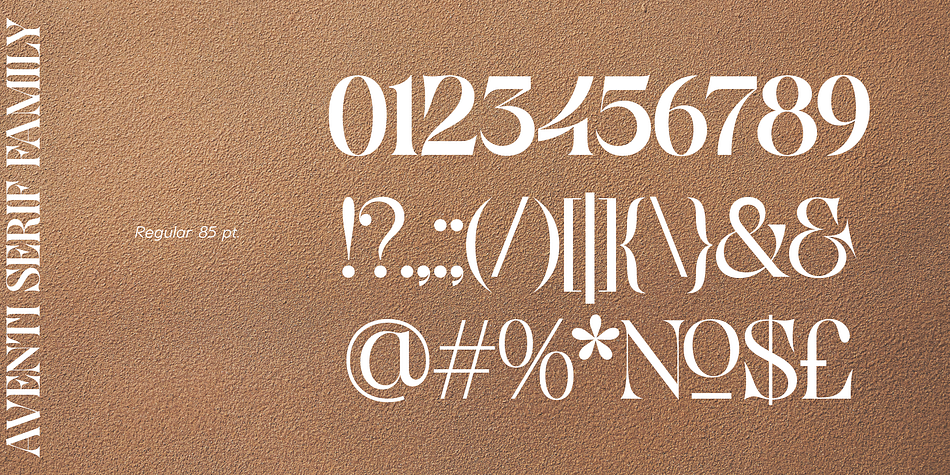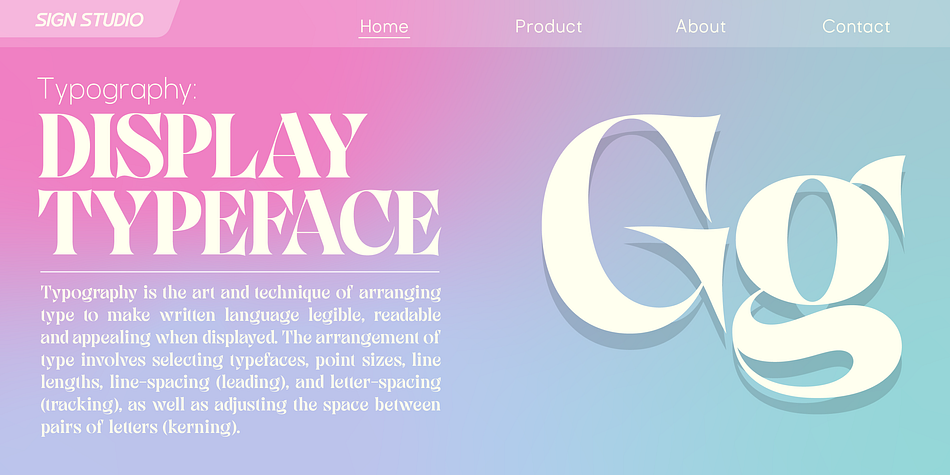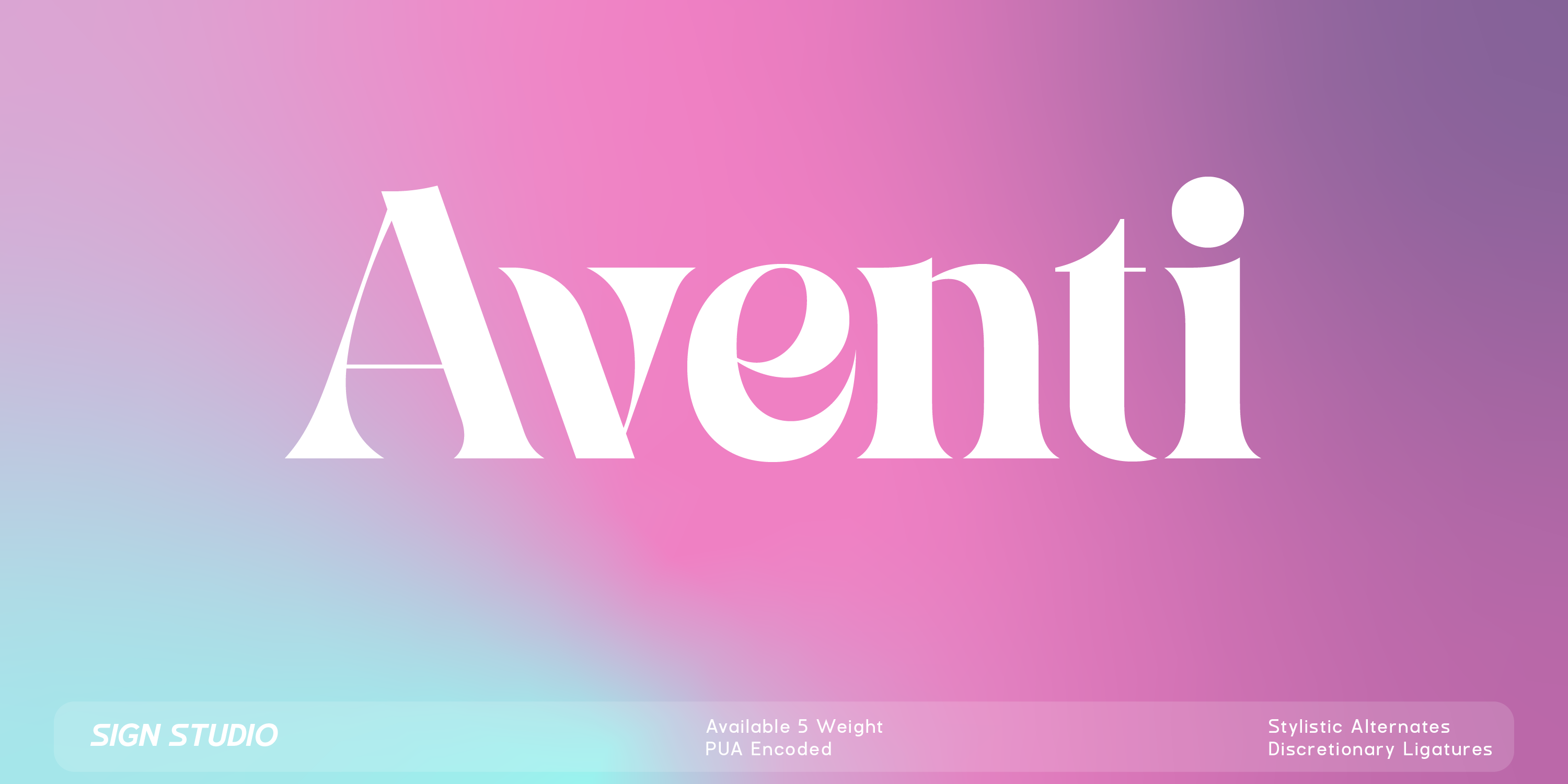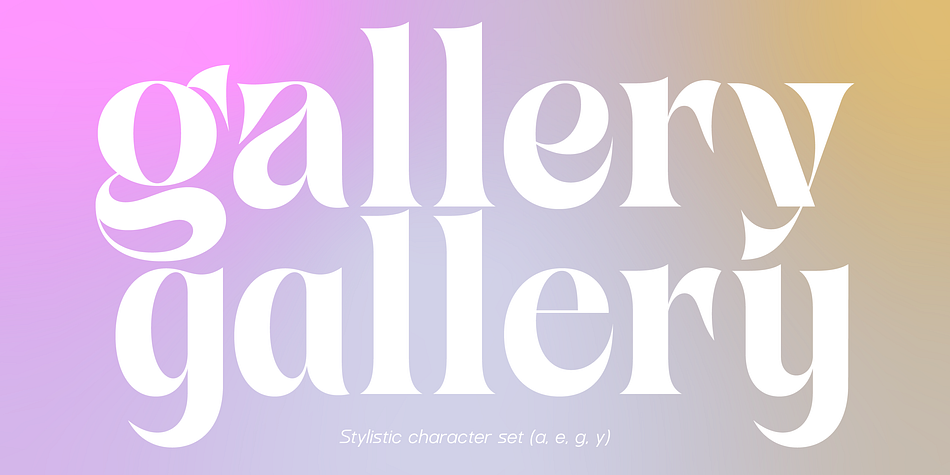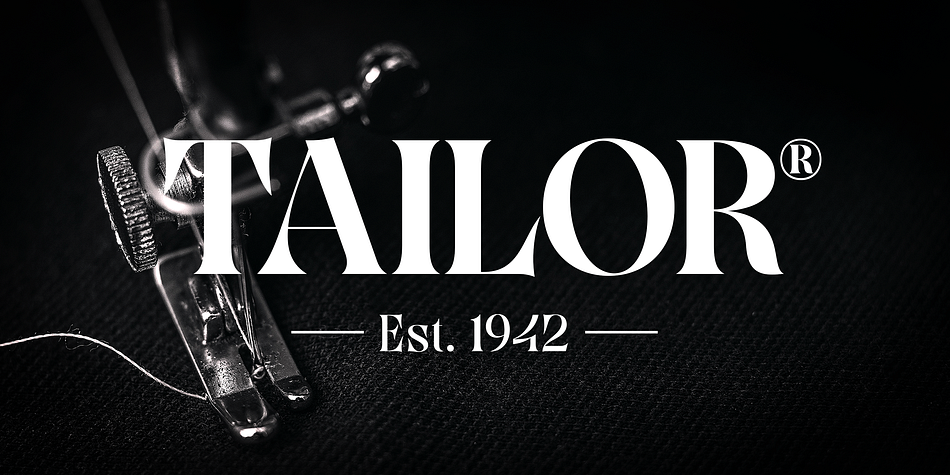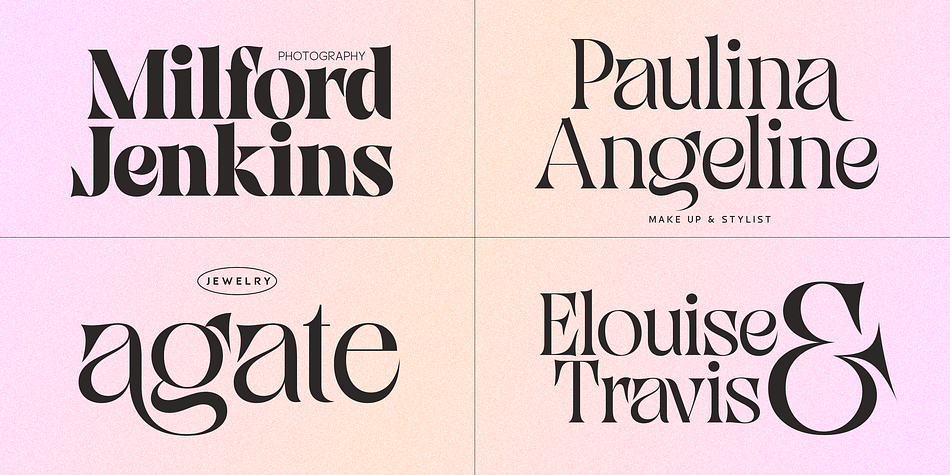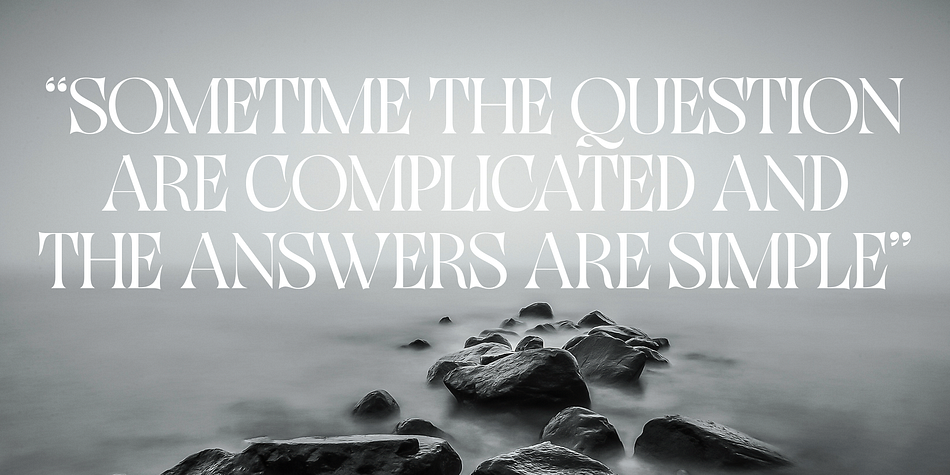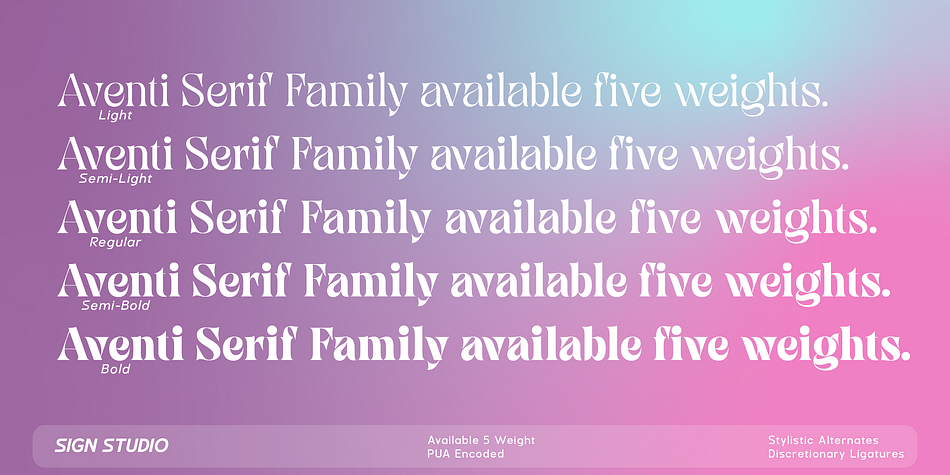
Aventi
Aventi is a display serif font family. This typeface has five styles and was published by Sign Studio.
Aventi is an absolutely elegant serif font. This typeface includes stylistic alternates set (a, e, g, y) and discretionary ligatures. It will elevate a wide range of design ideas, from cards to branding, labels, and more. This font is PUA encoded, which means you can access all of the glyphs, alternate characters, ligatures with ease.